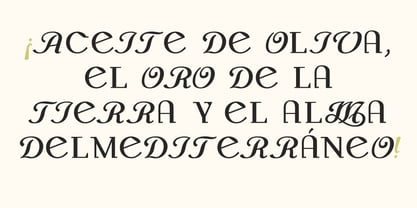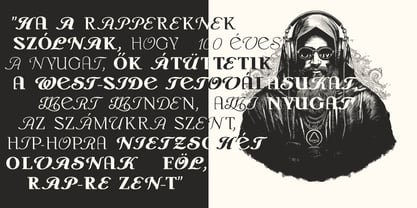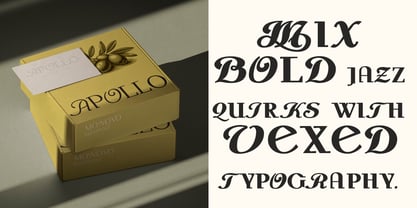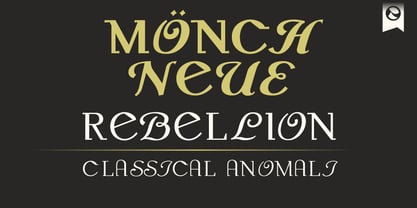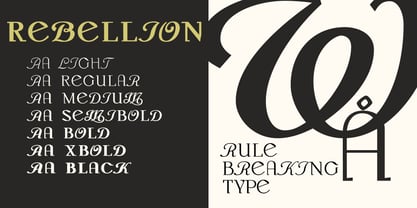
Monch Neue Rebellion
The Monch Neue Rebellion Font Family was designed by Amondó Szegi and published by Monovo. Monch Neue Rebellion contains 7 styles and family package options. More about this family
Mönch Neue Rebellion breaks the rules it just established. Where Roman shows restraint, Rebellion flaunts flourish. Art Nouveau curves, swash terminals, and unapologetic decorative energy—designed for fashion editorials, gallery identity, and brands that refuse to whisper. Available across all seven weights with Italic variants, Rebellion blends structure with swagger, grace with attitude. Use it when classical isn't enough and ordinary won't cut it. Extended European Latin support and OpenType features throughout. Classical training. Rebellious attitude.